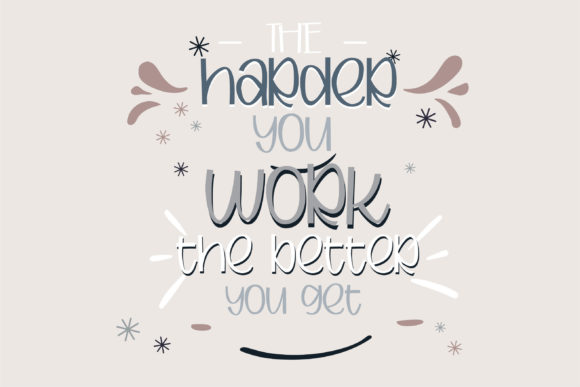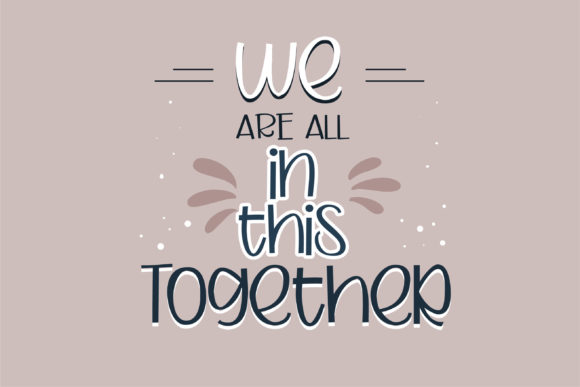
PN Megalomaniac Font
db-ku.com - Script & Handwritten -- PN Megalomaniac is a charming and whimsical script font. Its informal style and casual vibe will make this font a go-to choice for each of the creations that require a relaxed touch.